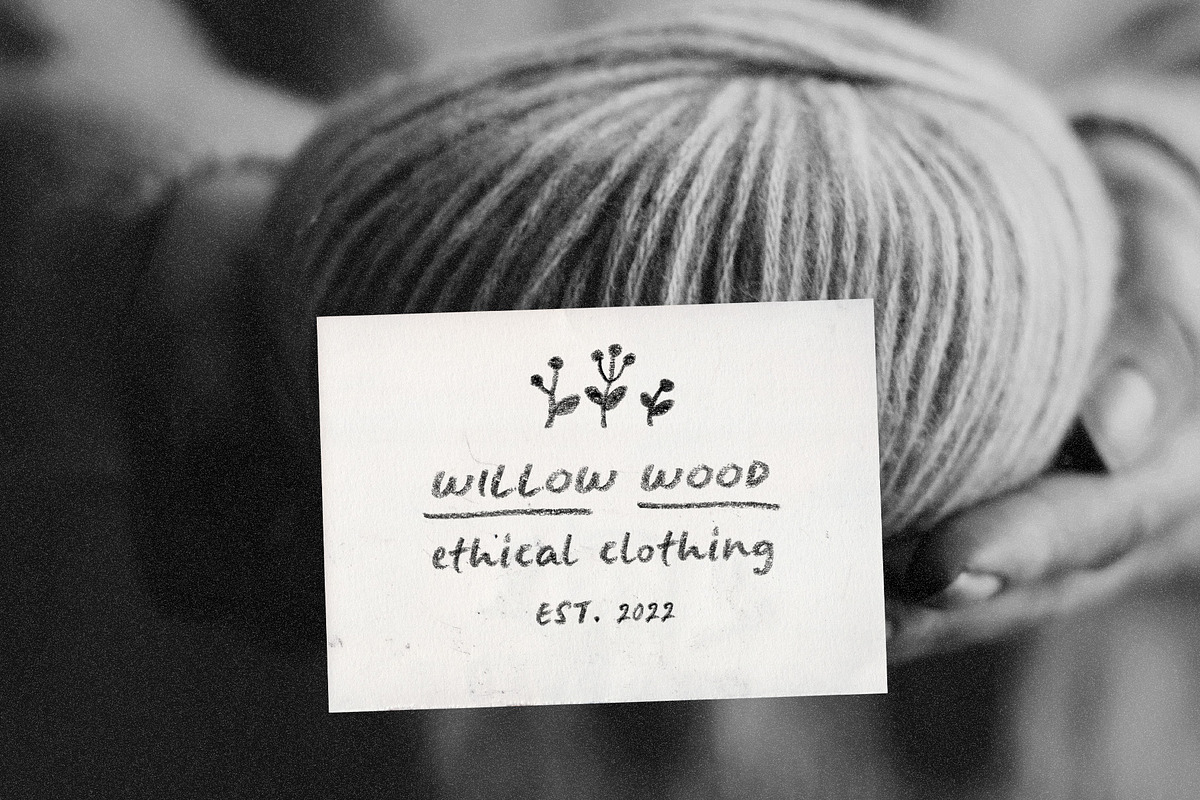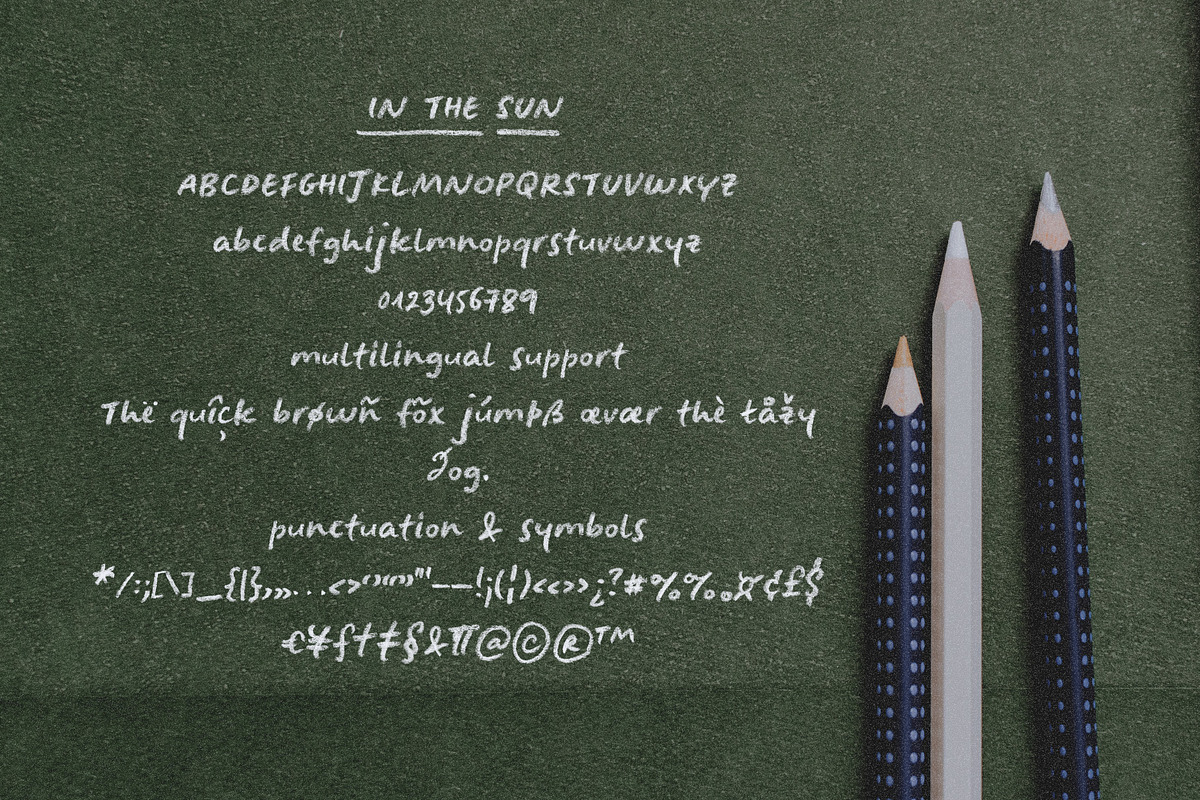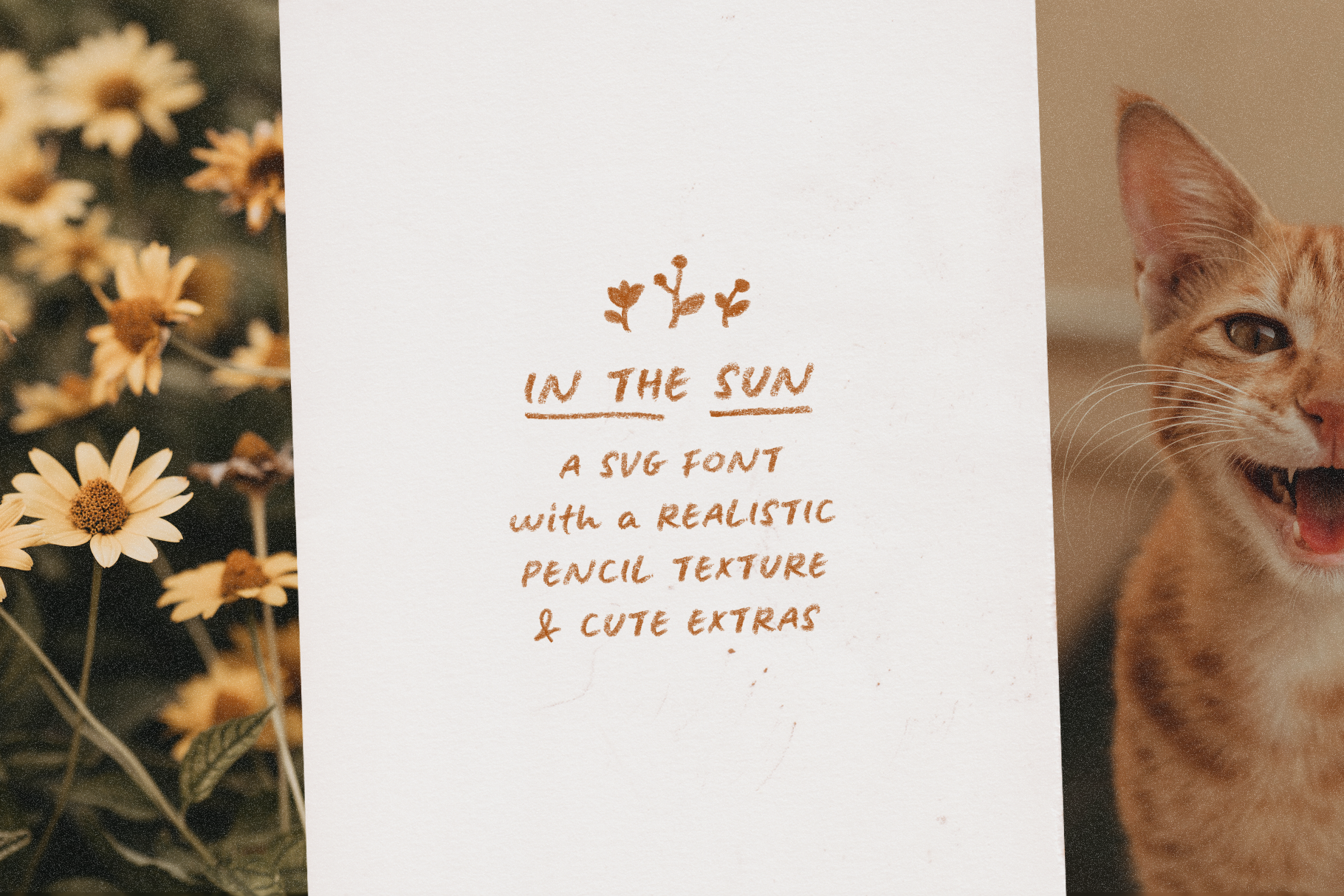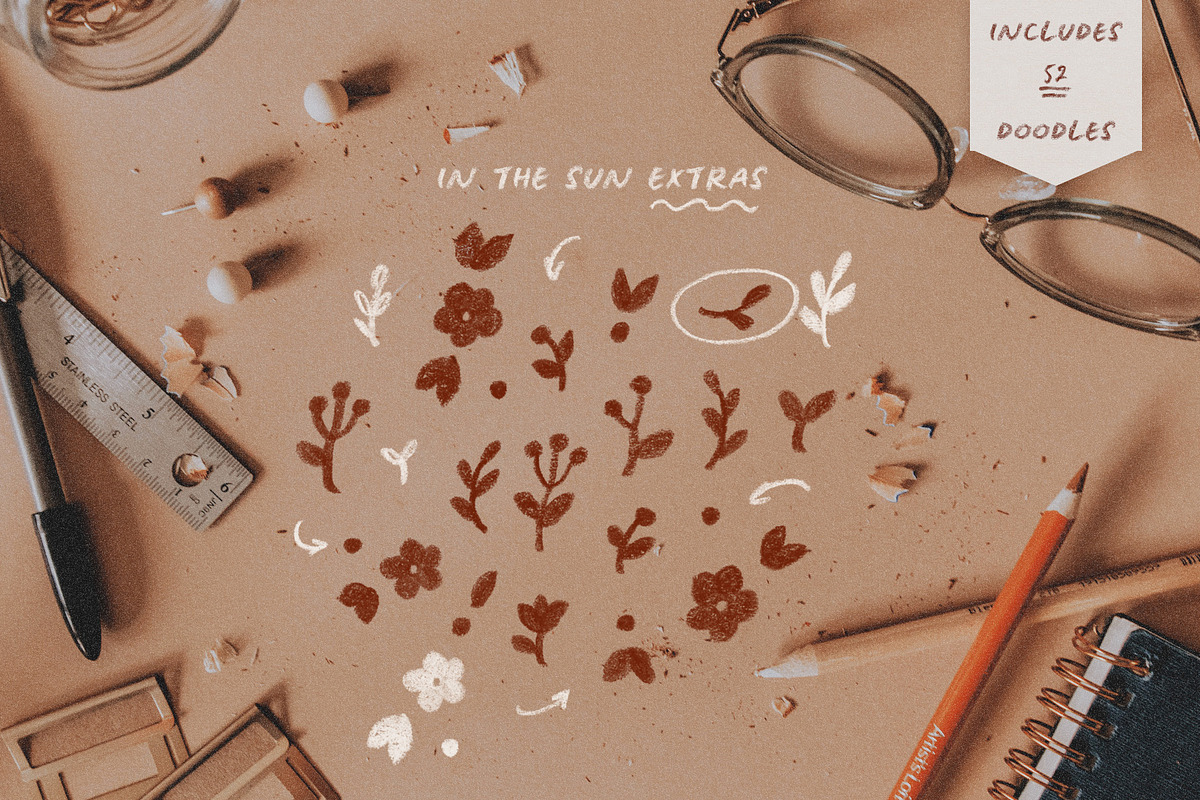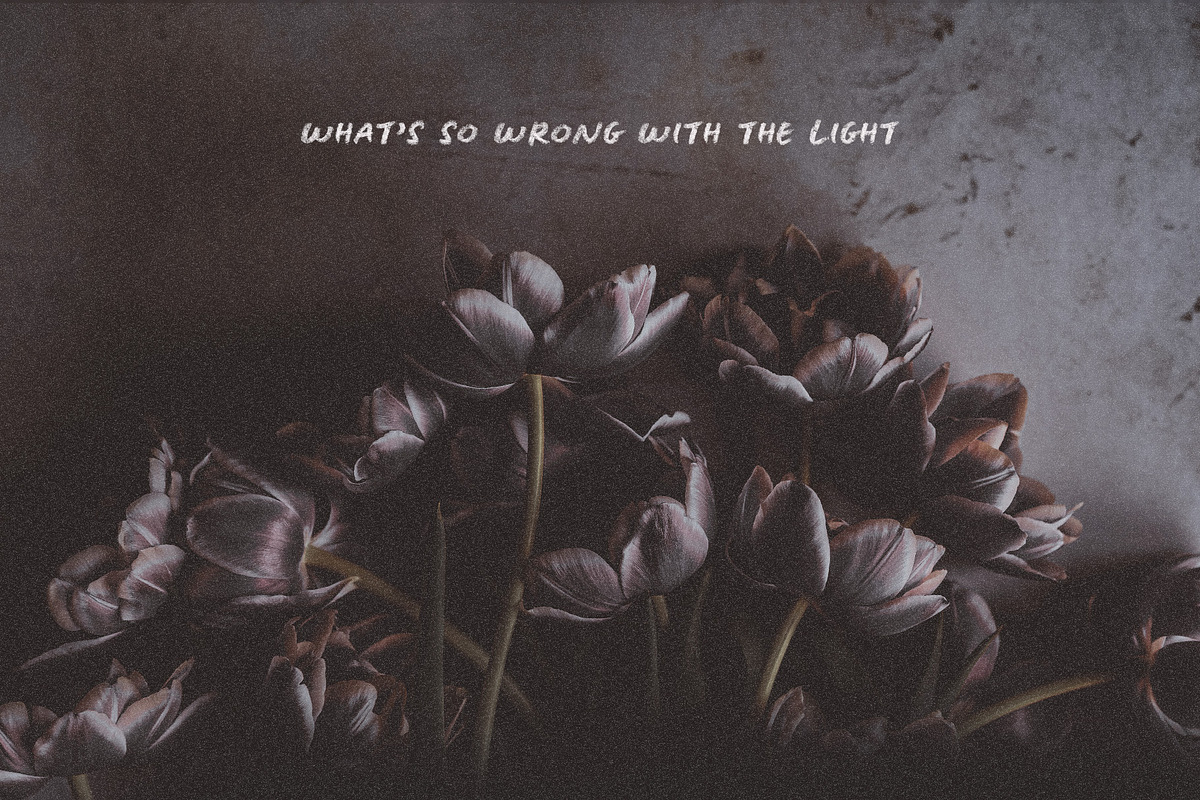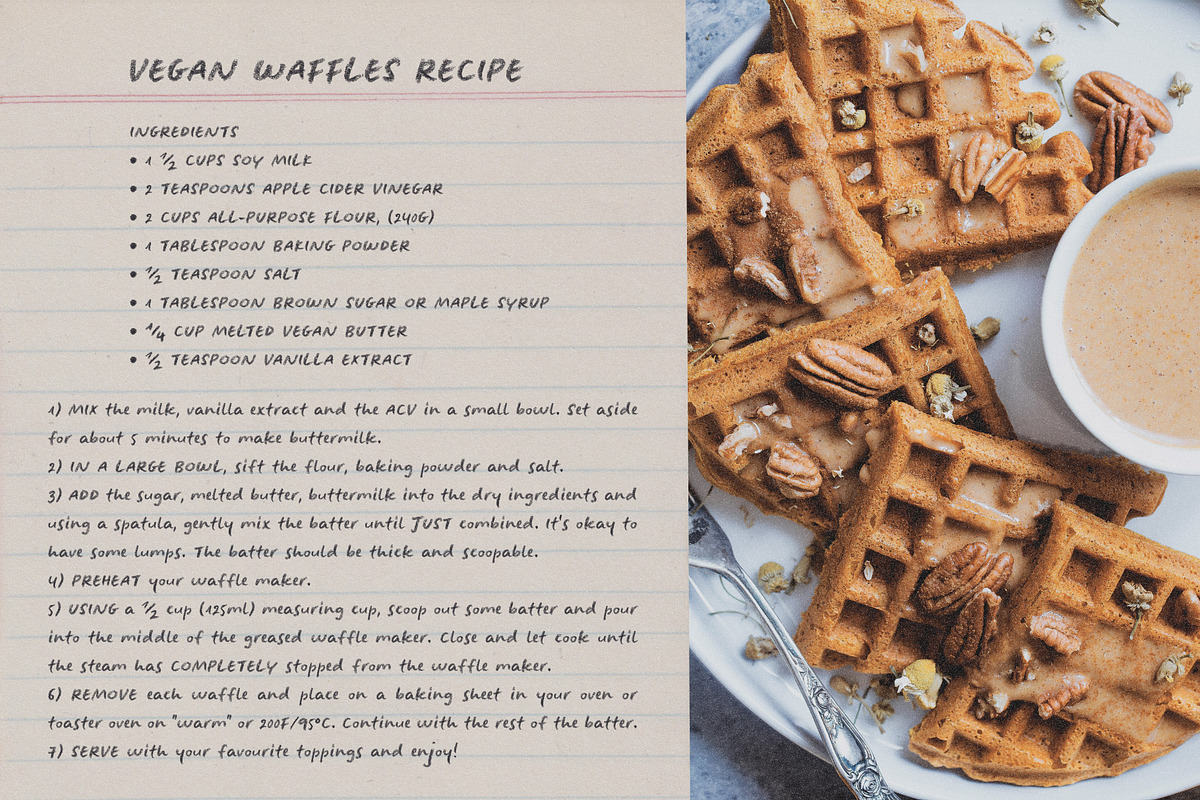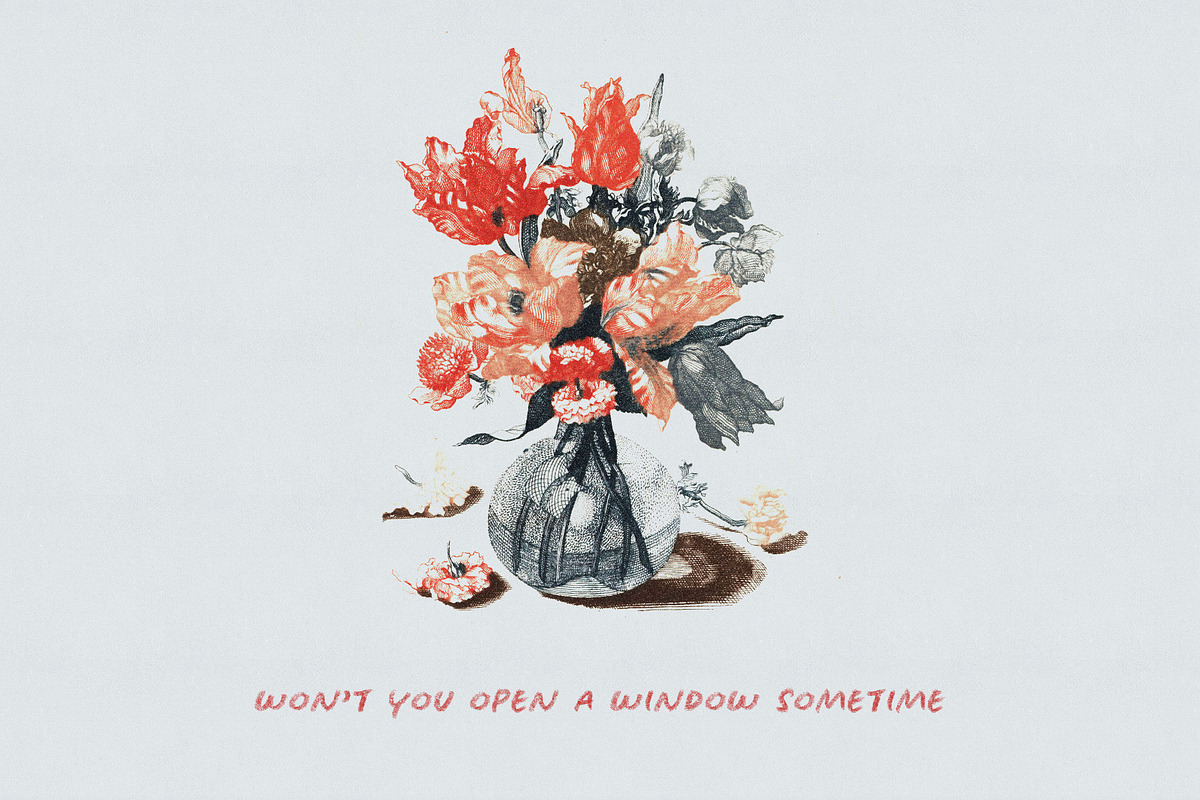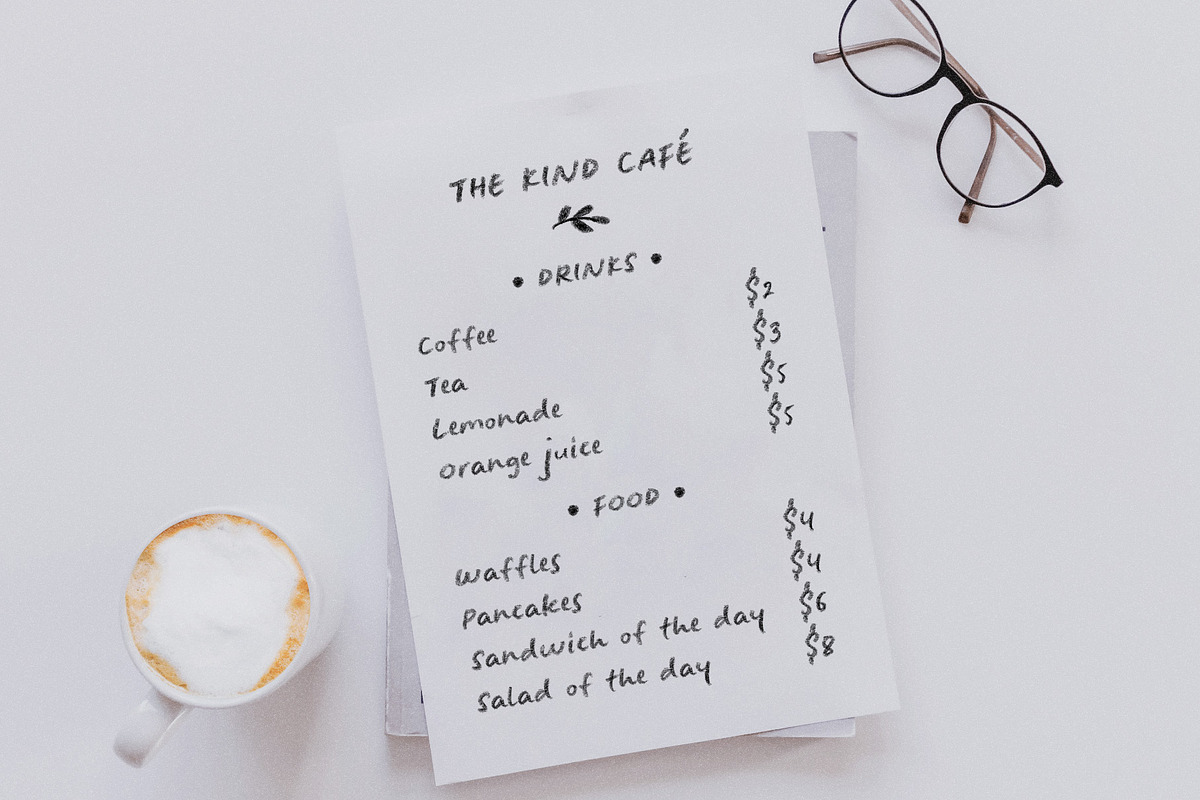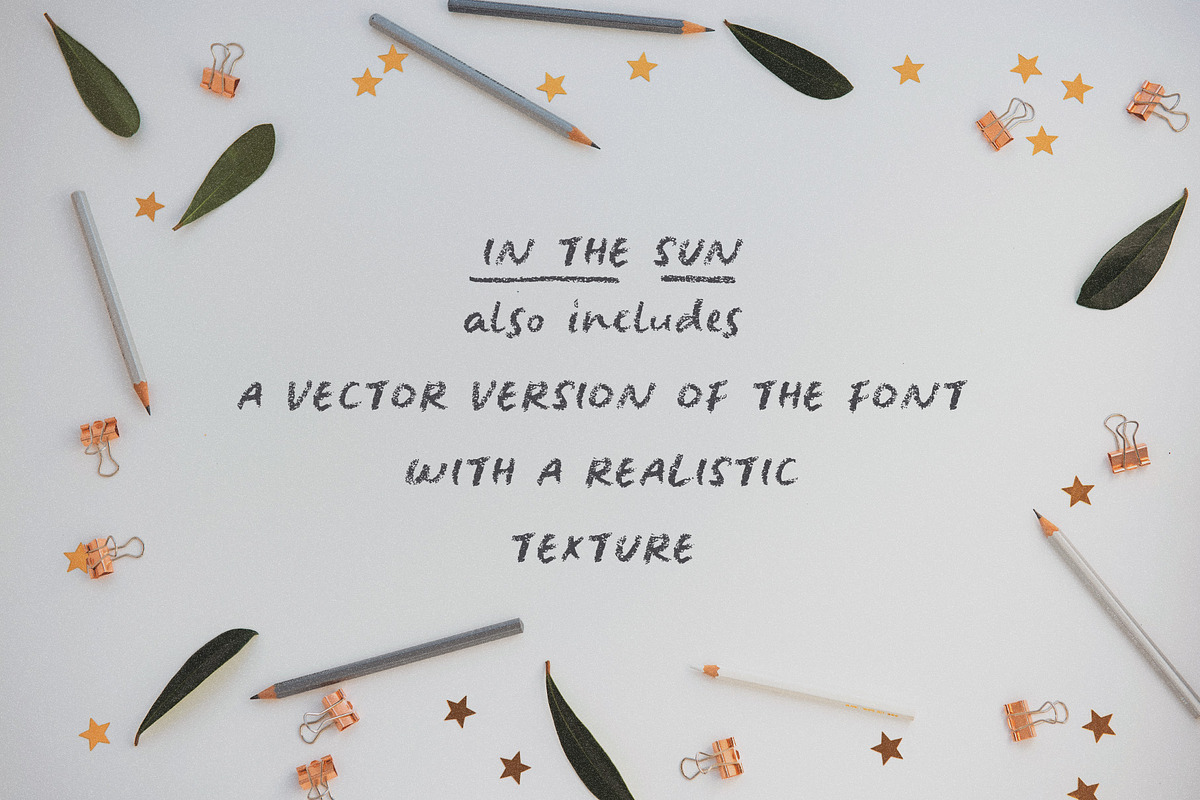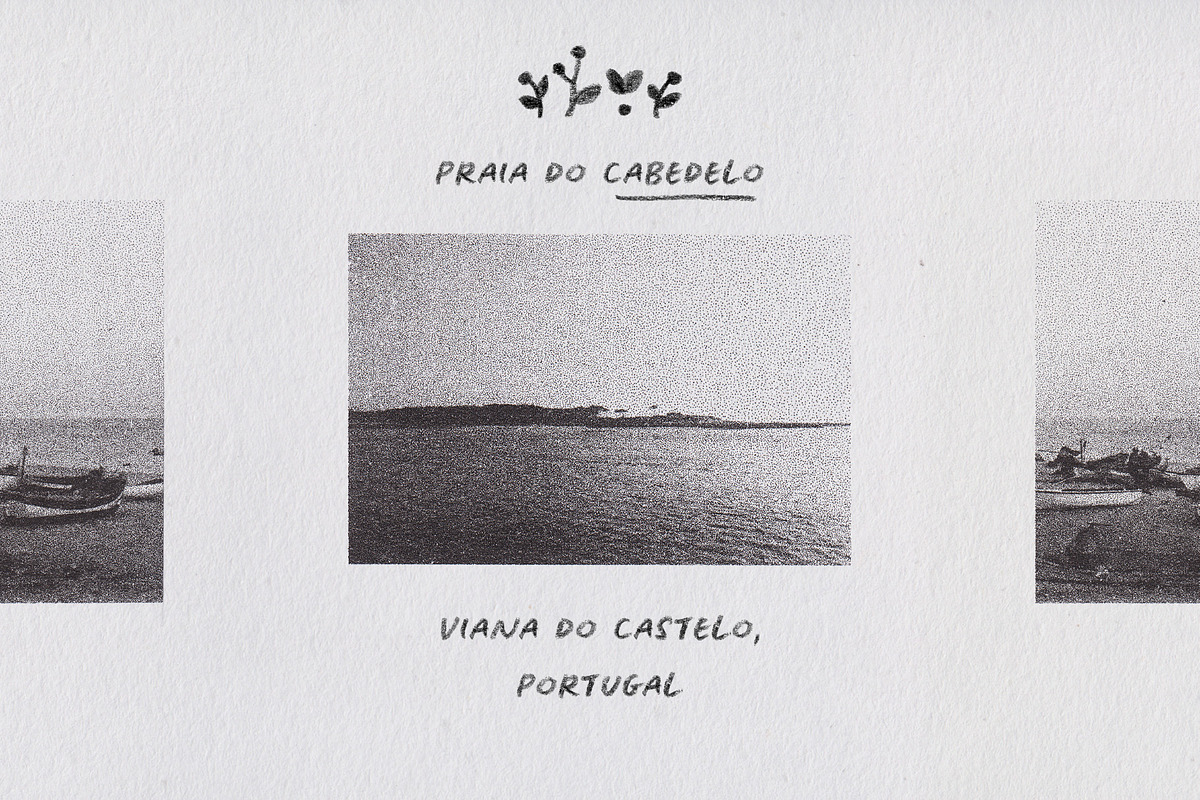
In The Sun handwritten SVG font
In The Sun is a SVG font made from pencil handwriting and doodles. The SVG format allows for the texture of the pencil to be captured in a realistic way. In The Sun looks best at smaller sizes and will also look great in all caps texts. Use In The Sun in designs such as postcards and notes, posters, logotypes, social media posts, branding and packaging.
- In The Sun handwritten font
- In The Sun Extras font, with underlines, circles, arrows, and small floral illustrations in: